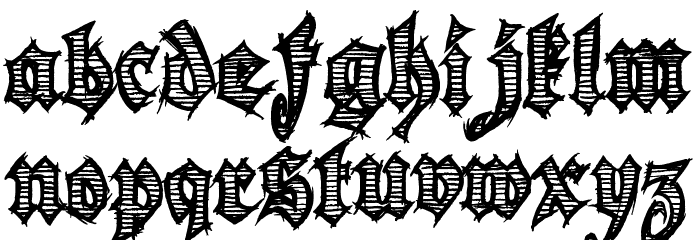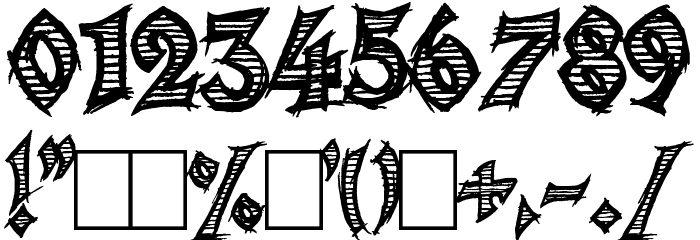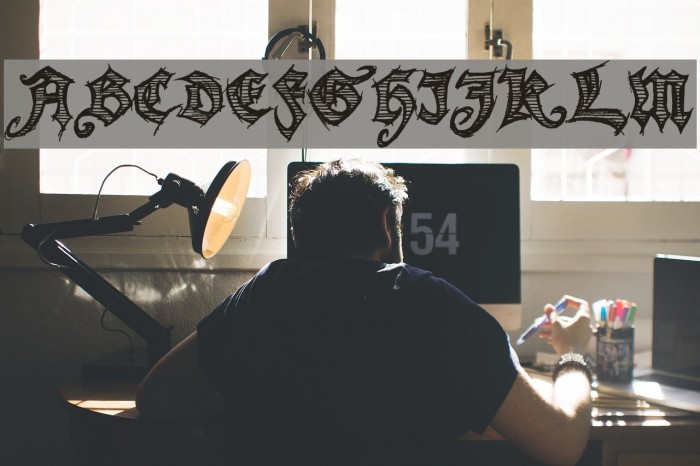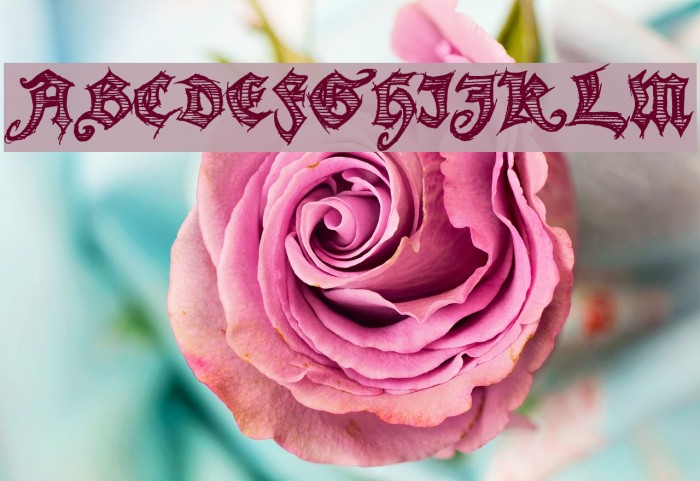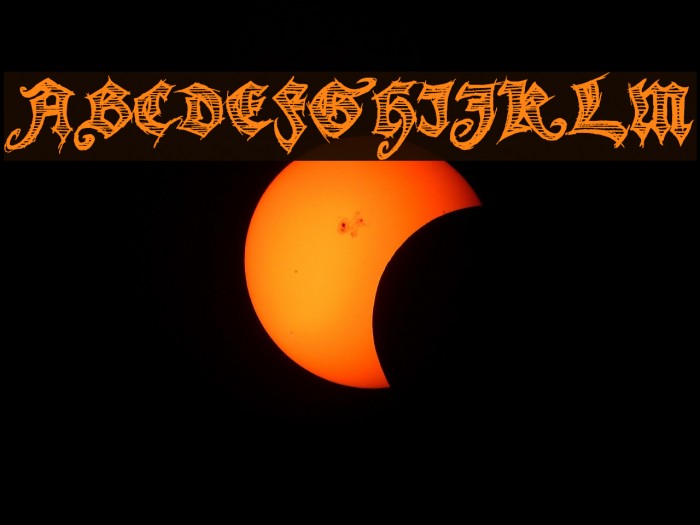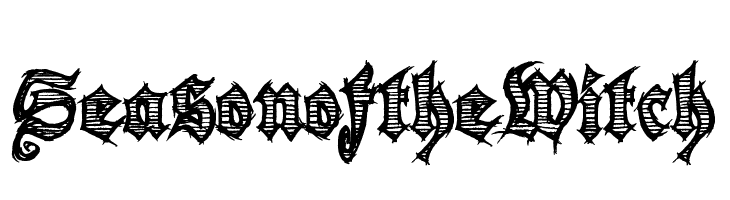
Season of the Witch Font
This font features a dramatic and intricate design, reminiscent of medieval calligraphy with a modern twist. The characters are adorned with sharp, thorn-like embellishments that give it a gothic and mysterious appearance. The strokes are bold and heavily stylized, with a high contrast between thick and thin lines, adding to its striking visual impact. The uppercase and lowercase letters maintain a consistent style, while the numerals and special characters complement the overall aesthetic. This font is perfect for projects that require a touch of fantasy or a dark, enchanting theme.
A gothic, medieval-inspired font with bold, thorn-like embellishments.
- Font: Season of the Witch
- Proposed Projects: Ideal for Halloween-themed designs, fantasy book covers, gothic event invitations, and decorative posters.
- Category: Blackletter
- Overall Style: Gothic, Decorative